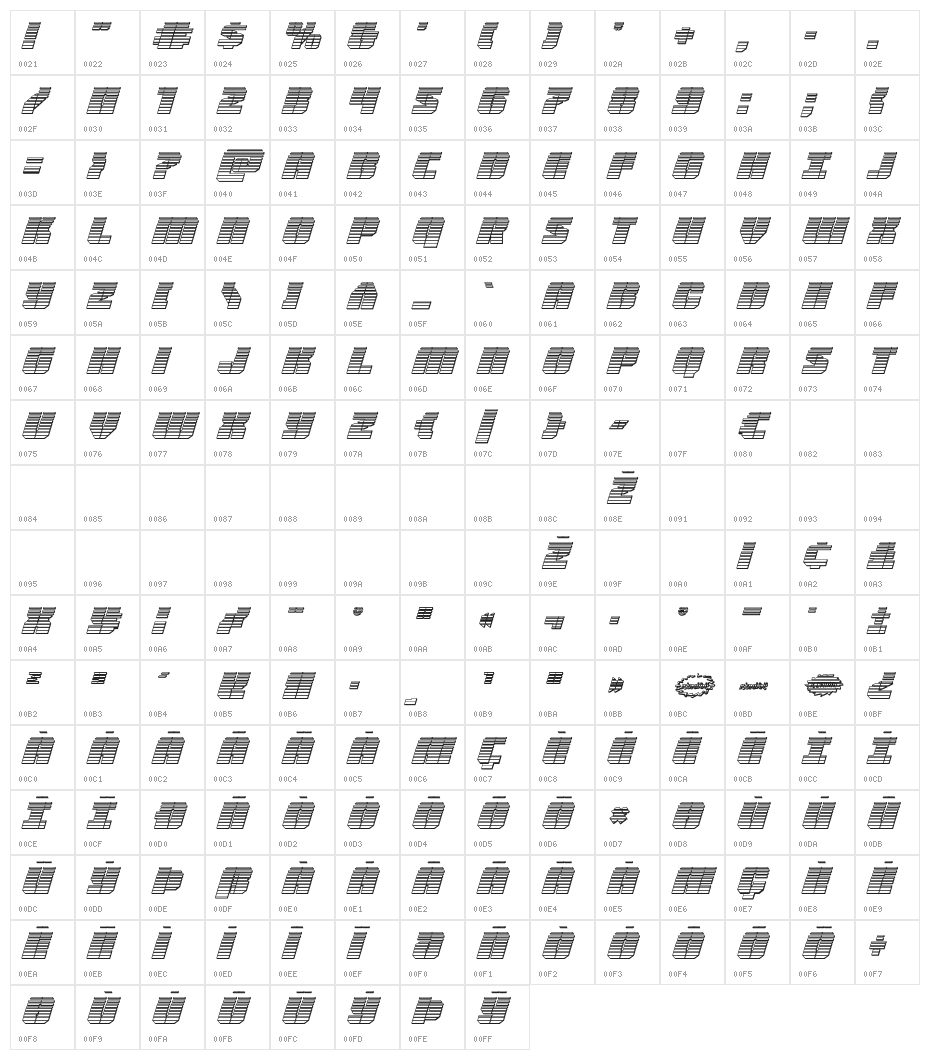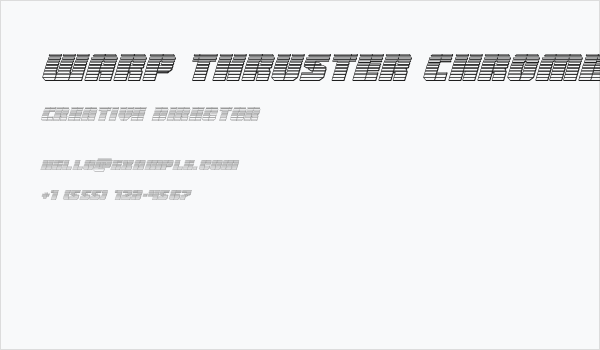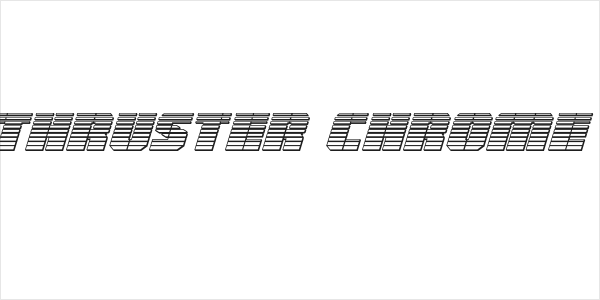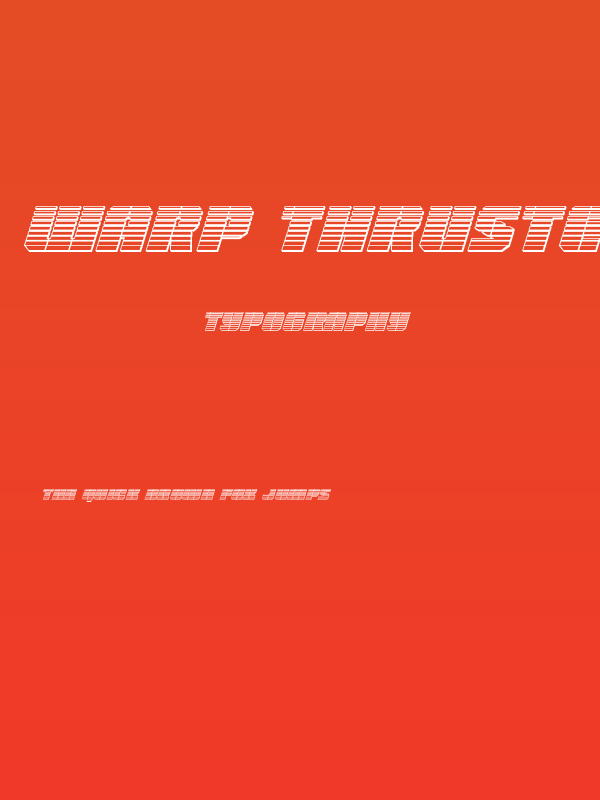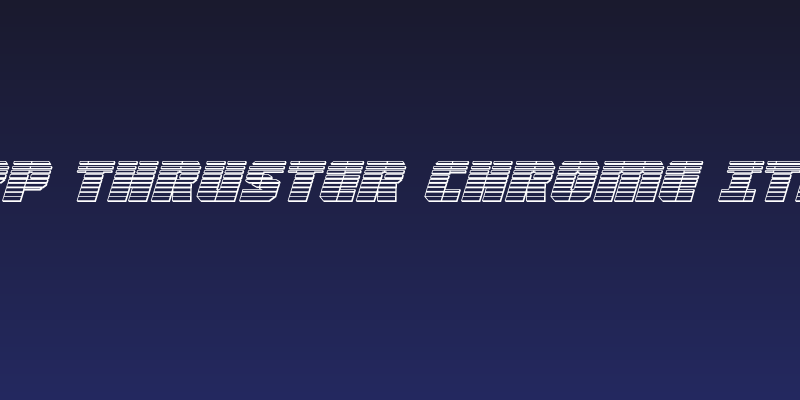
Warp Thruster Chrome Italic Font
Warp Thruster Chrome Italic Description
This font features a futuristic and dynamic design, characterized by its italicized and layered appearance. Each character is composed of multiple parallel lines, creating a sense of movement and depth. The font's structure is bold and geometric, with sharp angles and a consistent slant that enhances its modern aesthetic. The uppercase and lowercase letters maintain a uniform style, while the numerals and special characters are designed to match the overall theme. This font is ideal for projects that require a high-tech or sci-fi look, offering a unique visual impact.
| Proposed Projects | Ideal for sci-fi movie titles, tech branding, video game interfaces, and futuristic posters. |